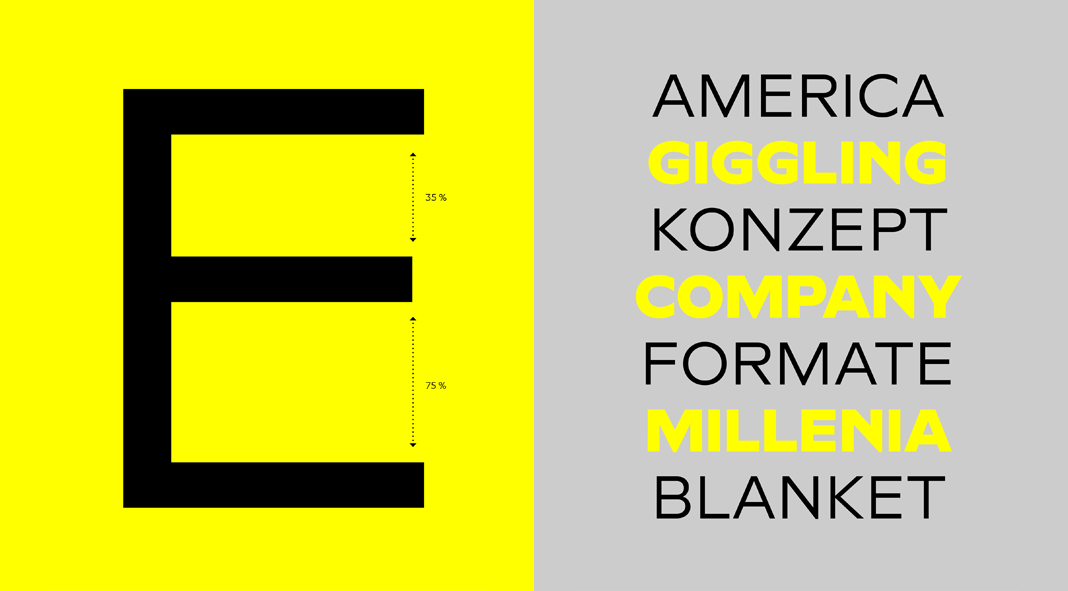
Novera, a modern and geometric sans-serif font family created by German typeface designer René Bieder.
Designed and published just recently by German typeface designer René Bieder, the Novera font family is based on a sharp geometric sans-serif typeface. It is available in 10 weights as well as 2 versions plus matching Italics for each weight. Its multifunctional yet characteristic design comes with an extensive set of over 1000 glyphs per font.
Novera’s typeface is based on vertical terminals, circular shapes, and angular apexes. The idea was to create a highly-legible font family, which is suitable for everyday usage inspired by the work of Paul Renner, Eric Gill or Jakob Erbar. Novera combines the geometric look with a human touch, functionality, and unconventional alternates.
To maintain Novera’s distinctive neutrality and modern appearance, its basic character set largely dispenses with idiosyncratic forms. This design concept is in contrast to the alternate letterforms with the Gill-like lowercases such as ‘g’ and ‘t’ as well as a traditional shape of the letter ‘S’ and the German ligature t/z, which dates back to old German spellings. Also inspired by German poster designs from the early 20th century are the elongated i-dots and dieresis-dots that work well in headlines or logos.